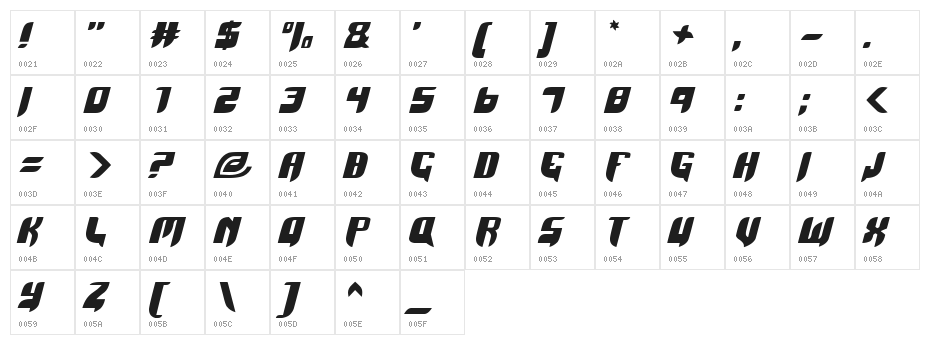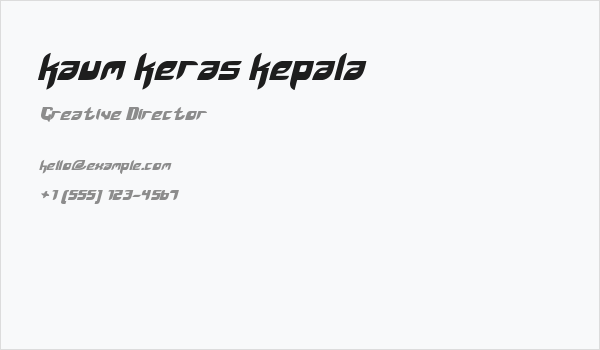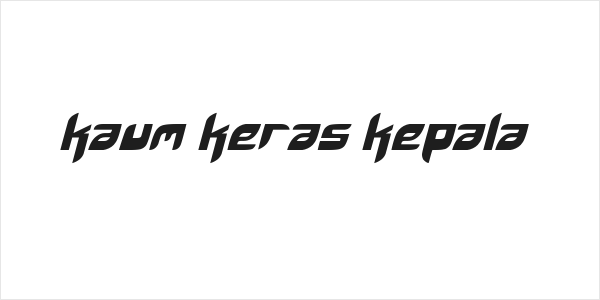
kaum keras kepala Font
kaum keras kepala Description
This font exhibits a bold and dynamic style, characterized by sharp angles and a futuristic aesthetic. The uppercase letters are particularly striking, with a strong presence and a sense of movement. The lowercase letters maintain this dynamic feel, offering a cohesive look across both cases. The numerals are equally bold, ensuring readability while maintaining the overall style. Special characters are designed to match the angular and modern theme, making this font suitable for attention-grabbing designs.
Proposed ProjectsIdeal for sci-fi themed projects, video game titles, posters, and branding that requires a modern and edgy look.